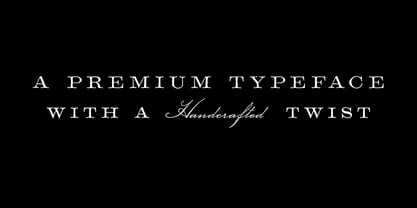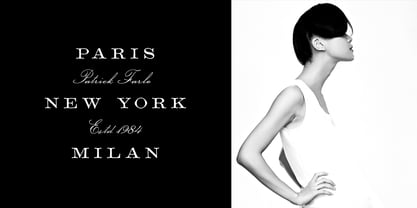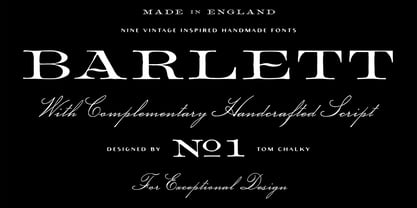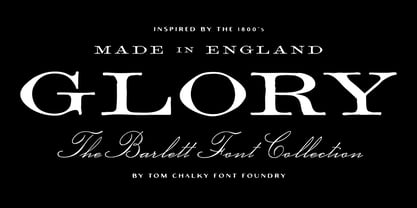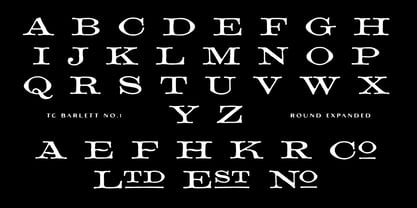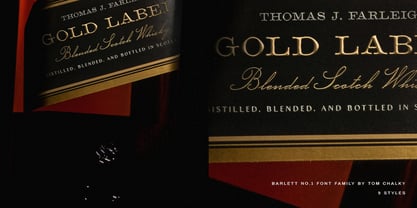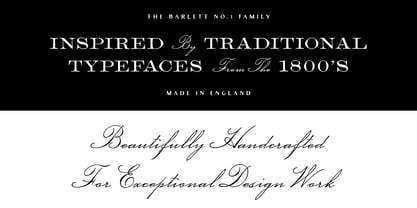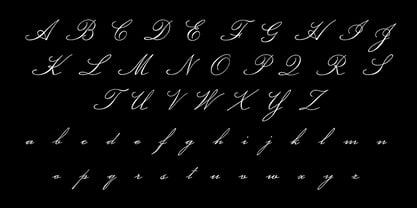
TC Barlett No1
by Tom Chalky
The TC Barlett No1 Font Family was designed by Tom Chalky and published by Tom Chalky. TC Barlett No1 contains 9 styles and family package options.
Barlett No.1 is a premium handcrafted font family that blends traditional charm with modern functionality.
Inspired by 1800s English typefaces, this 9-style collection includes a range of serif styles and an elegant complementary script - all designed to bring a sense of character, imperfection, and manmade authenticity to premium design work.
From editorial headlines to whisky labels, boutique branding to product packaging, Barlett No.1's subtle irregularities and vintage-inspired details make it the ideal choice when you want to inject personality into premium design.
The family includes:
• Regular, bold, expanded, and rounded serif variants
• A flowing, handcrafted script for contrast and elegance
• A useful selection of stylistic alternates and custom ligatures
Whether you're building a high-end brand, crafting elegant print materials, or adding nostalgic flair to your packaging, Barlett No.1 gives your typography an unmistakably handcrafted twist rooted in tradition.
About Tom Chalky
Obsessed with handwritten, handpainted, and imperfect. Almost every design can benefit from a human’s touch or, at the very least, the appearance of one. It is relatable, tactile, and authentic. It stands out in our clean and crisp digital world, and it is this charismatic and expressionate style of design that I strive for in each and every one of my fonts.